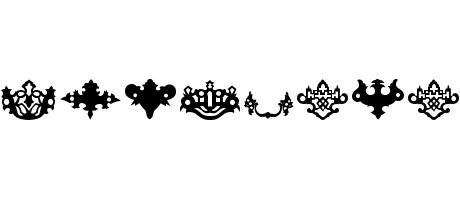
Djoewana
Djoewana: A decorative display typeface, Djoewana boasts a collection of ornate, symmetrical glyphs reminiscent of antique architectural flourishes or heraldic crests. Its bold, black-and-white aesthetic evokes a sense of grandeur and historical significance, suitable for logos, titles, or other applications demanding an air of elegance and classicism.